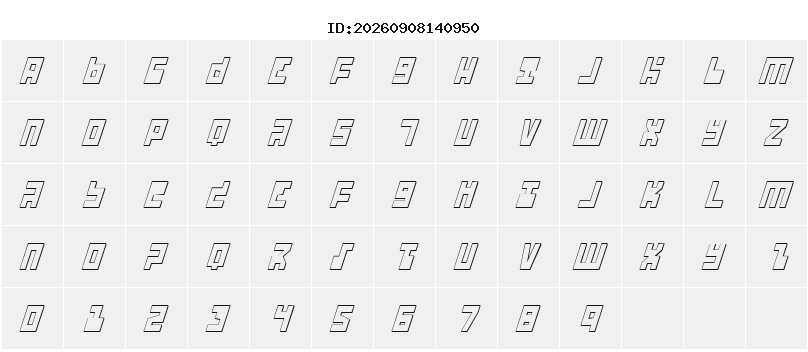
UFO Hunte 3D Italic Preview
• Font Name: UFO Hunte 3D Italic
• Font ID: UFO Hunter 3D: 2009
• Full Font Name: UFO Hunter 3D Italic
• PostScript Name: UFOHunter3DItalic
About UFO Hunte 3D Italic.ttf
UFO Hunte 3D Italic.ttf is a modern, elegant sans-serif font designed for ultimate readability and visual harmony. Perfect for branding, headlines, web design, and print materials.